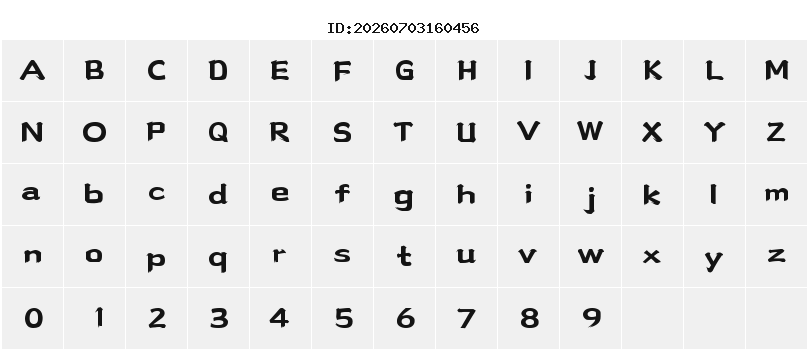
377-上首千刃体 Preview
• Font Name: 377-上首千刃体
• Font ID: 377-SSQianRen:Version 6.00
• Full Font Name: 377-上首千刃体
• Version: Version 6.00;March 7, 2025;FontCreator 13.0.0.2613 64-bit
• PostScript Name: 377SSQianRen
• Character Count: 7569
• Manufacturer: 上首造字
About 377-上首千刃体.ttf
377-上首千刃体.ttf is a modern, elegant sans-serif font designed for ultimate readability and visual harmony. Perfect for branding, headlines, web design, and print materials.